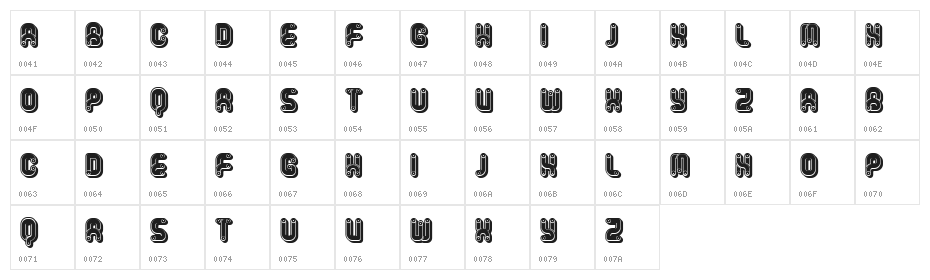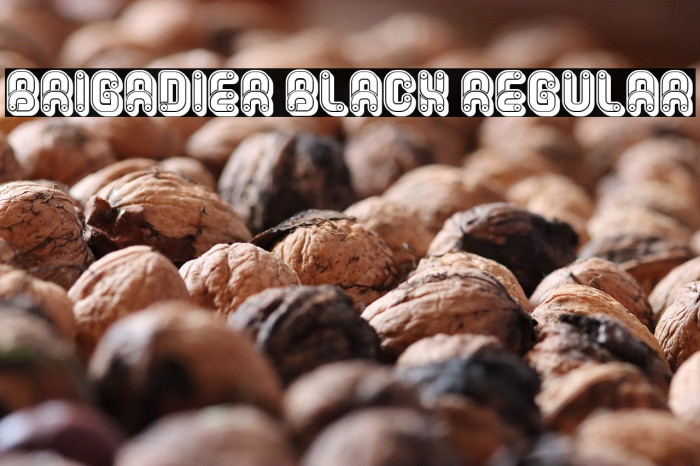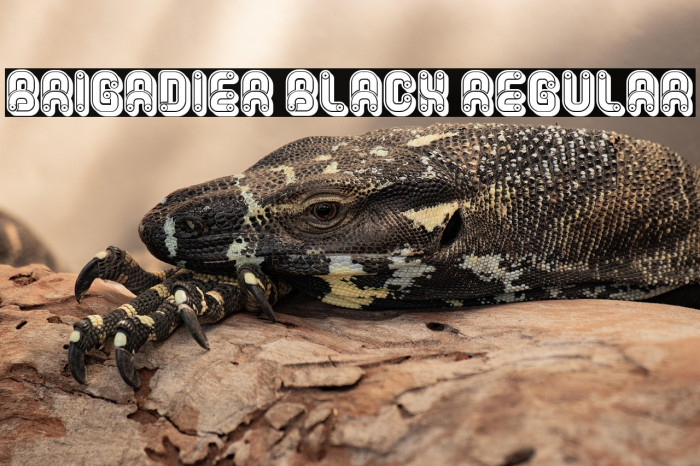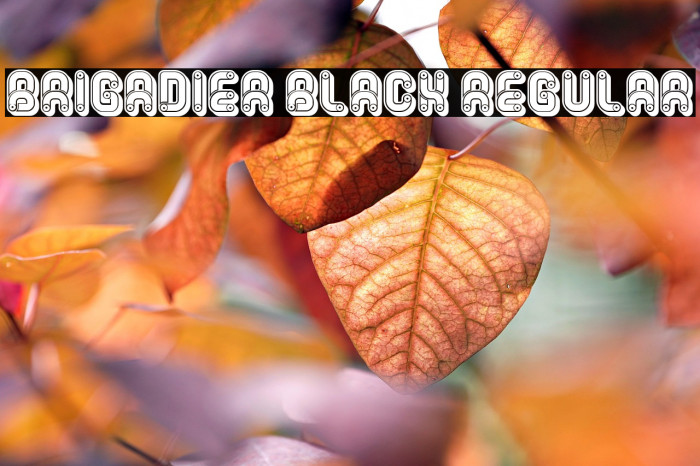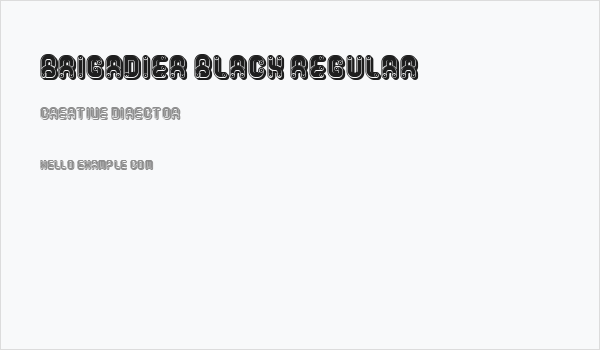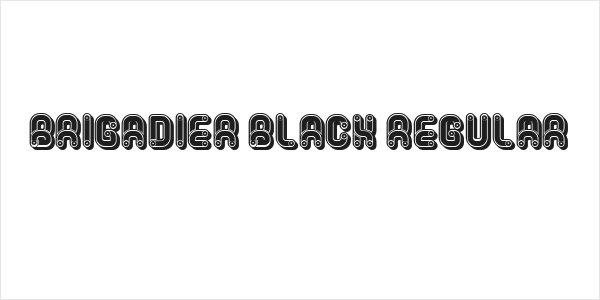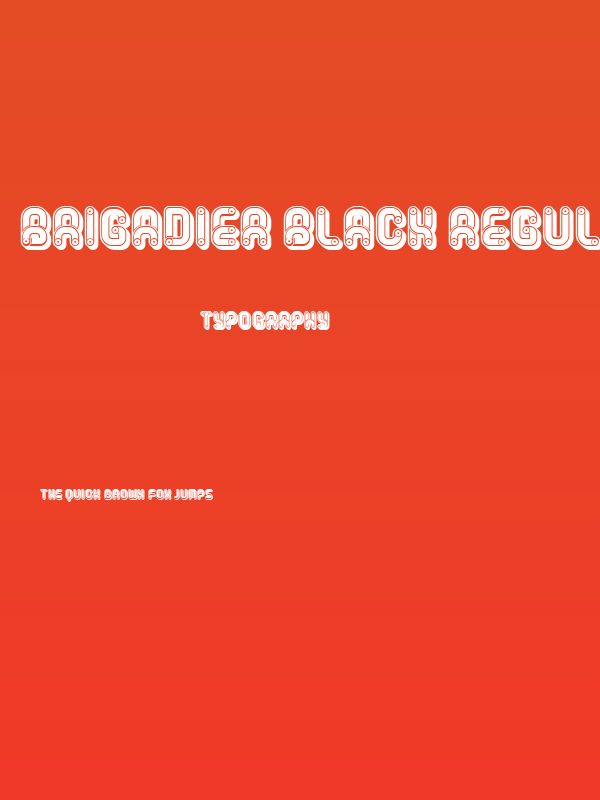
Brigadier Black Regular Font
Brigadier Black Regular Description
This font features a bold, mechanical design with a distinct industrial feel. Each character is constructed with thick, rounded strokes that incorporate circular elements, giving it a unique, gear-like appearance. The boldness of the font is accentuated by its solid black fill and white outlines, creating a striking contrast that enhances readability. The uniformity in stroke width across all characters contributes to a cohesive and structured look. This font is particularly eye-catching and is designed to stand out, making it ideal for attention-grabbing headlines or branding materials. Its decorative style is both modern and reminiscent of industrial design, making it versatile for various creative applications.
| Overall Style | Modern, Industrial |
| Proposed Projects | Ideal for branding, posters, signage, and any project requiring a bold, industrial aesthetic. |